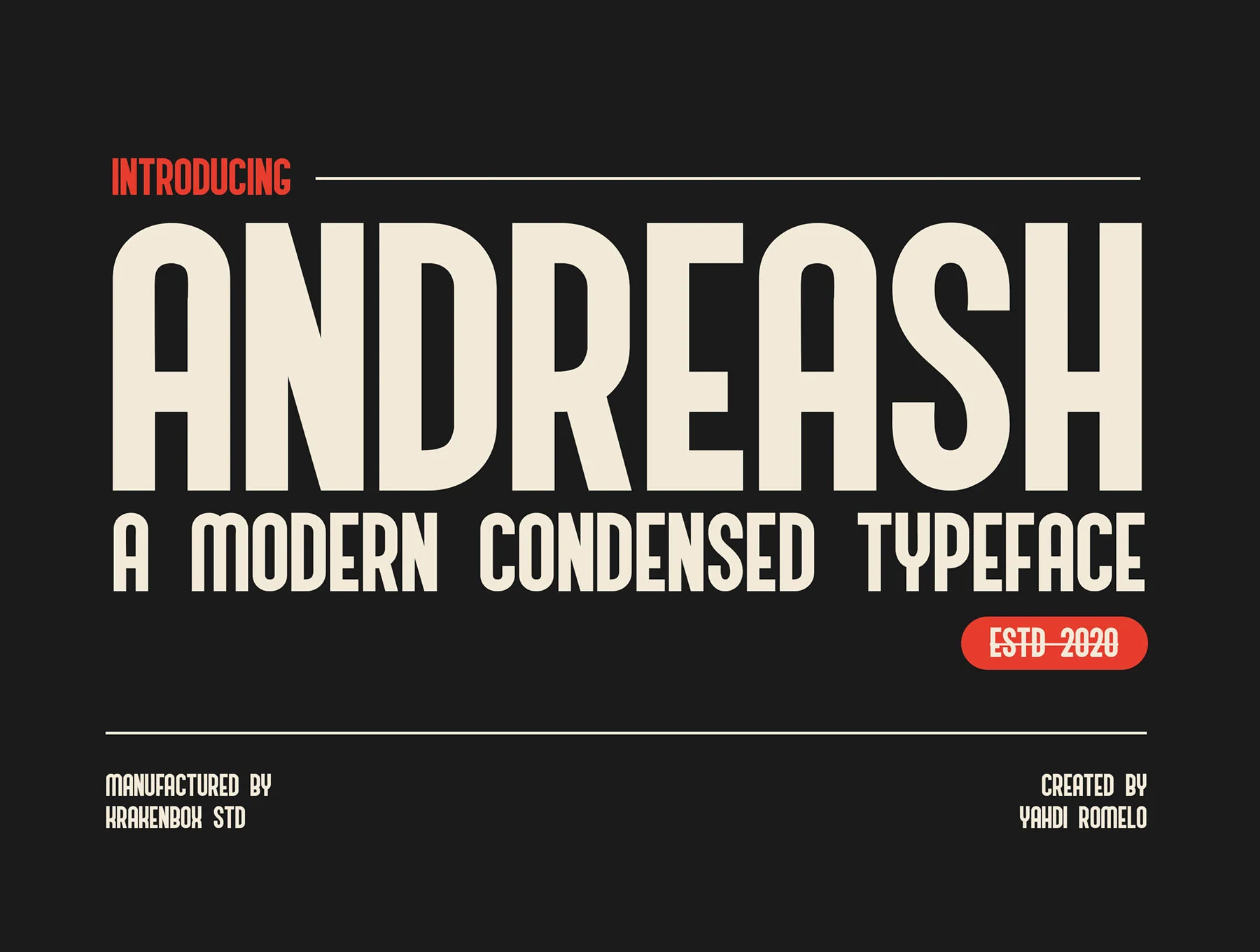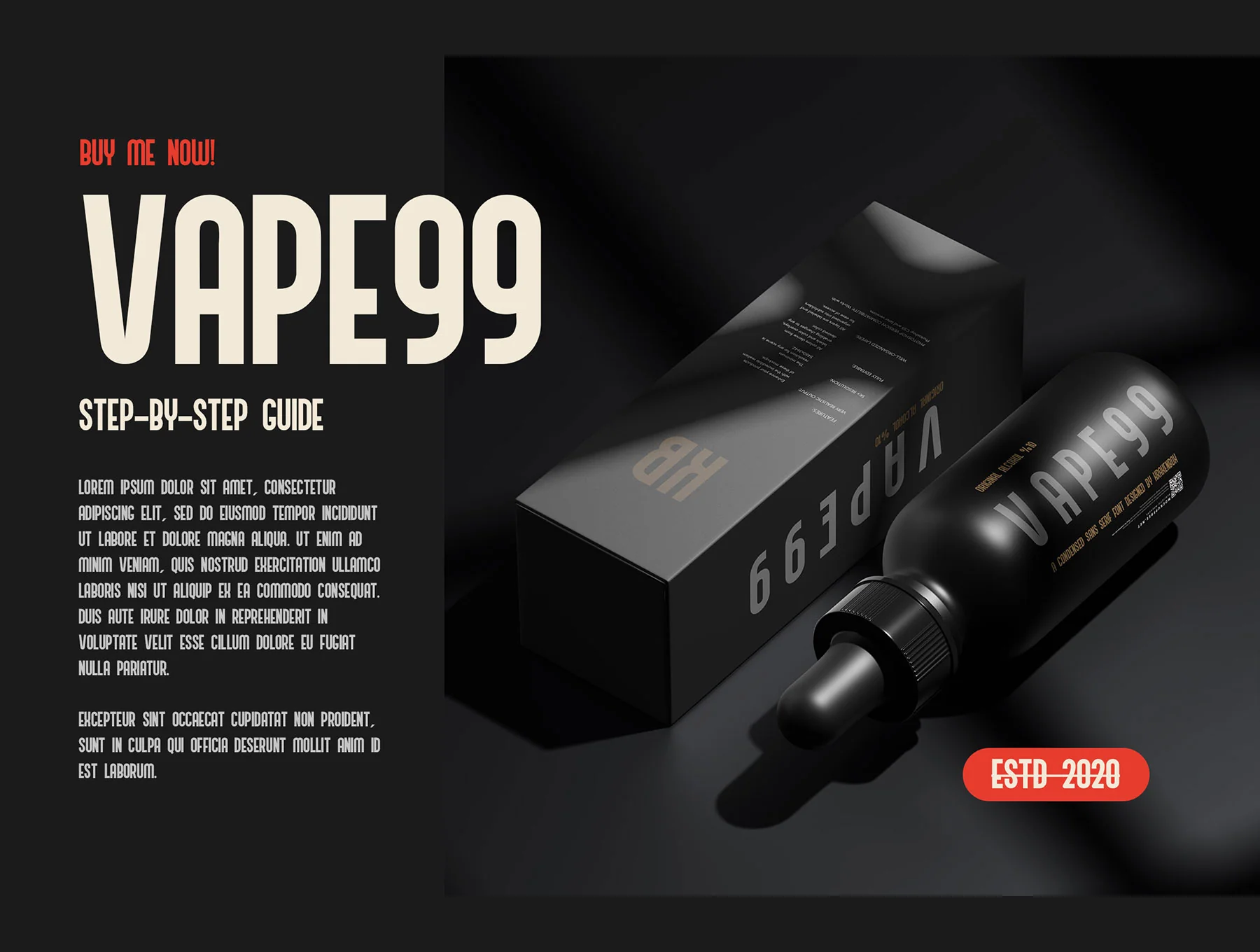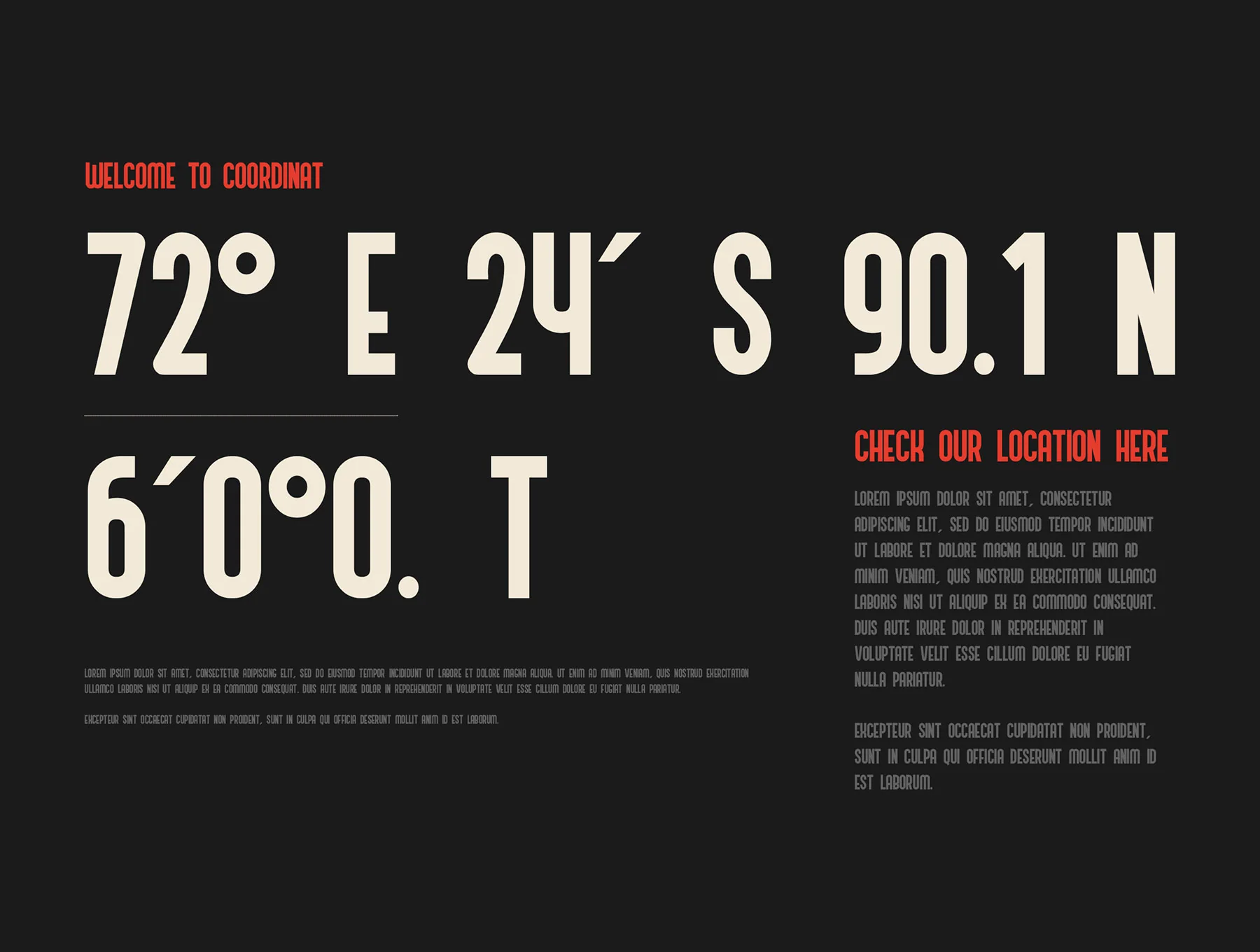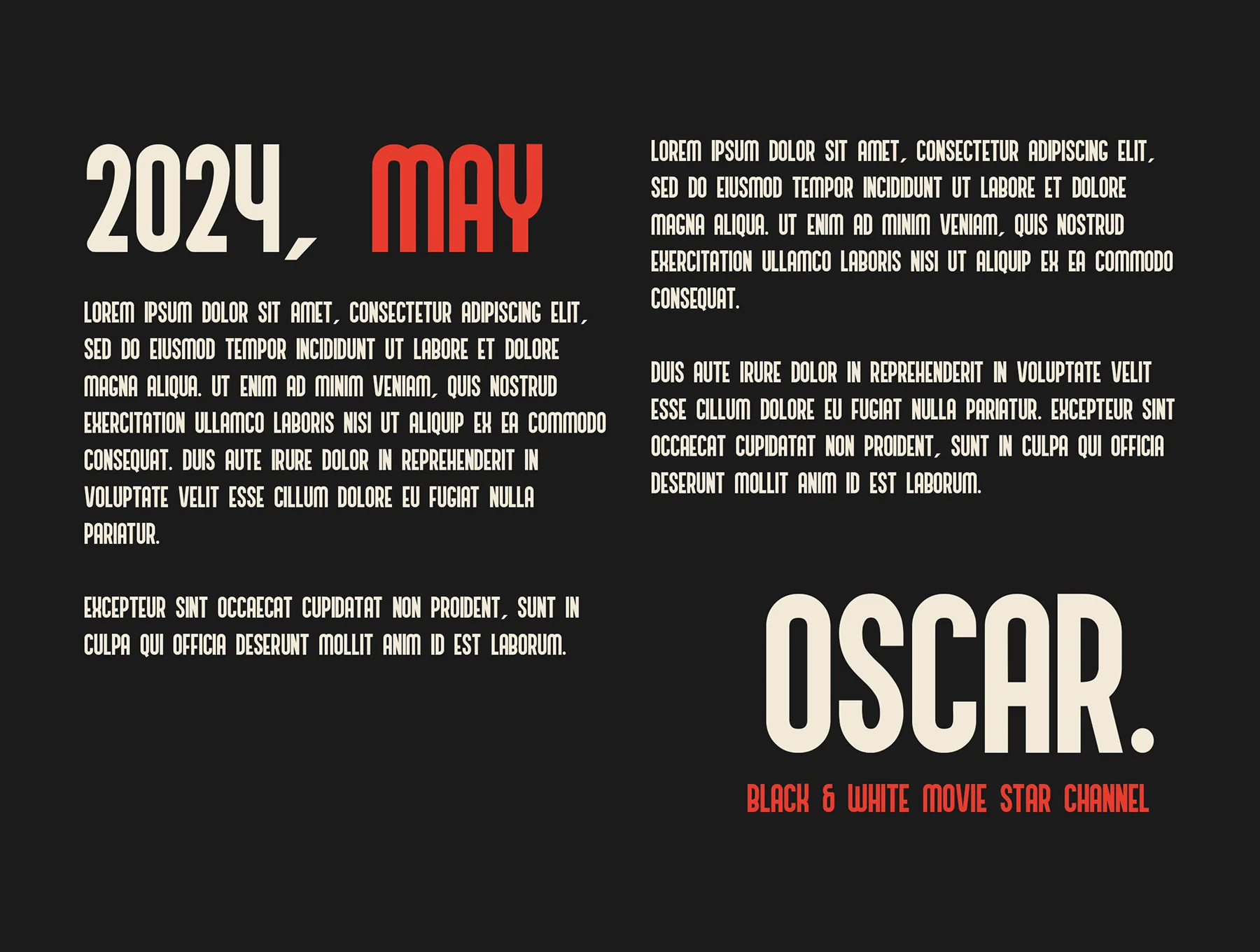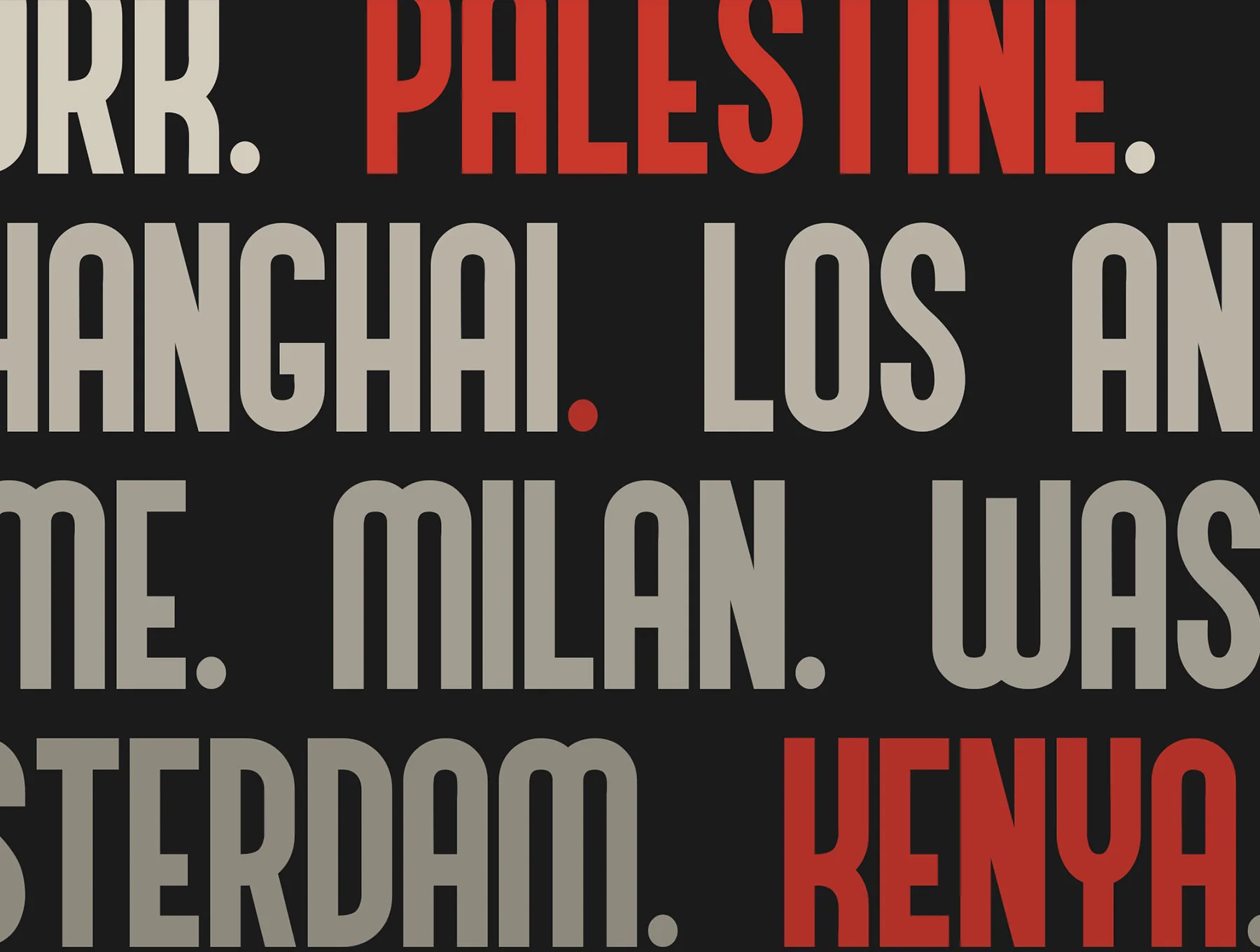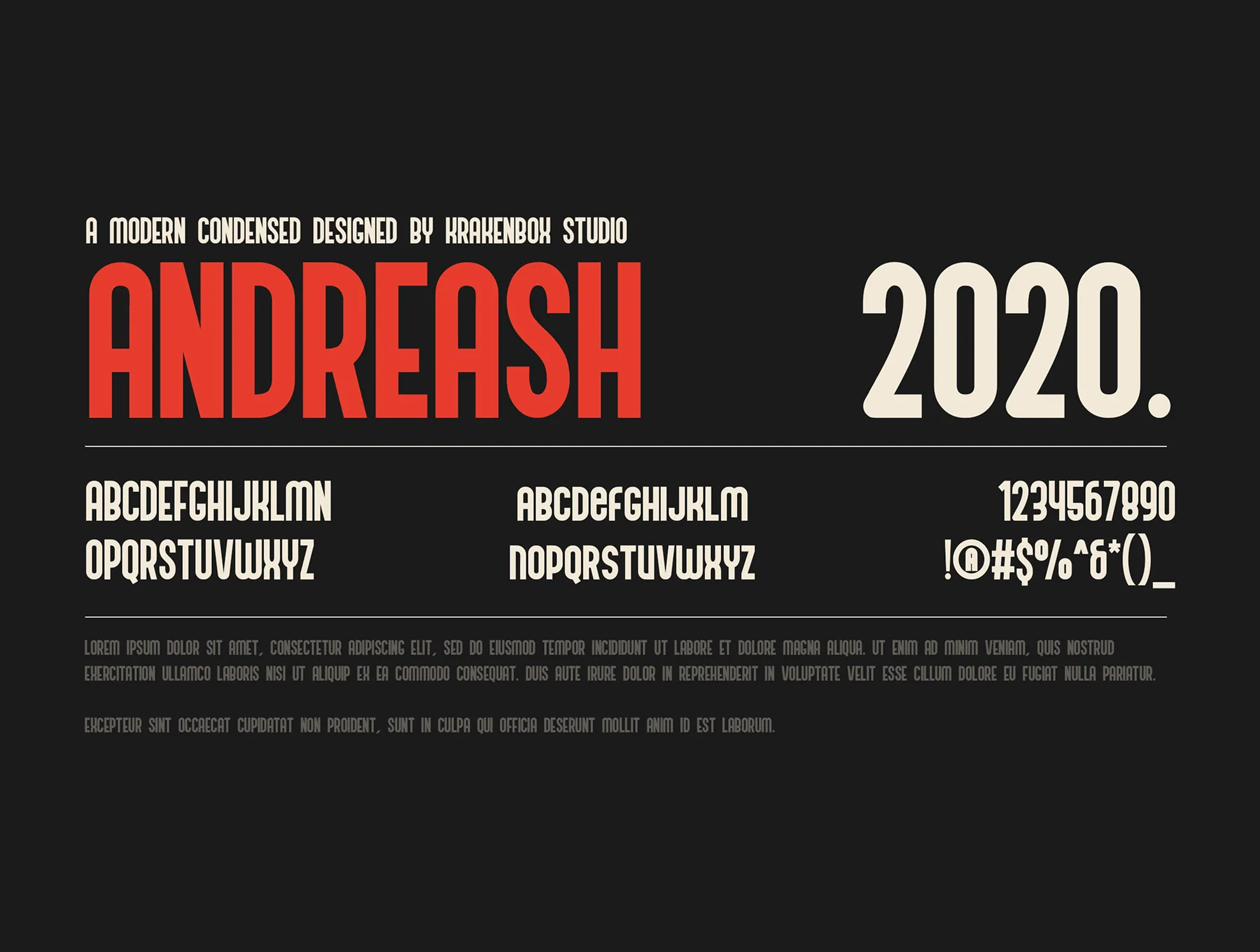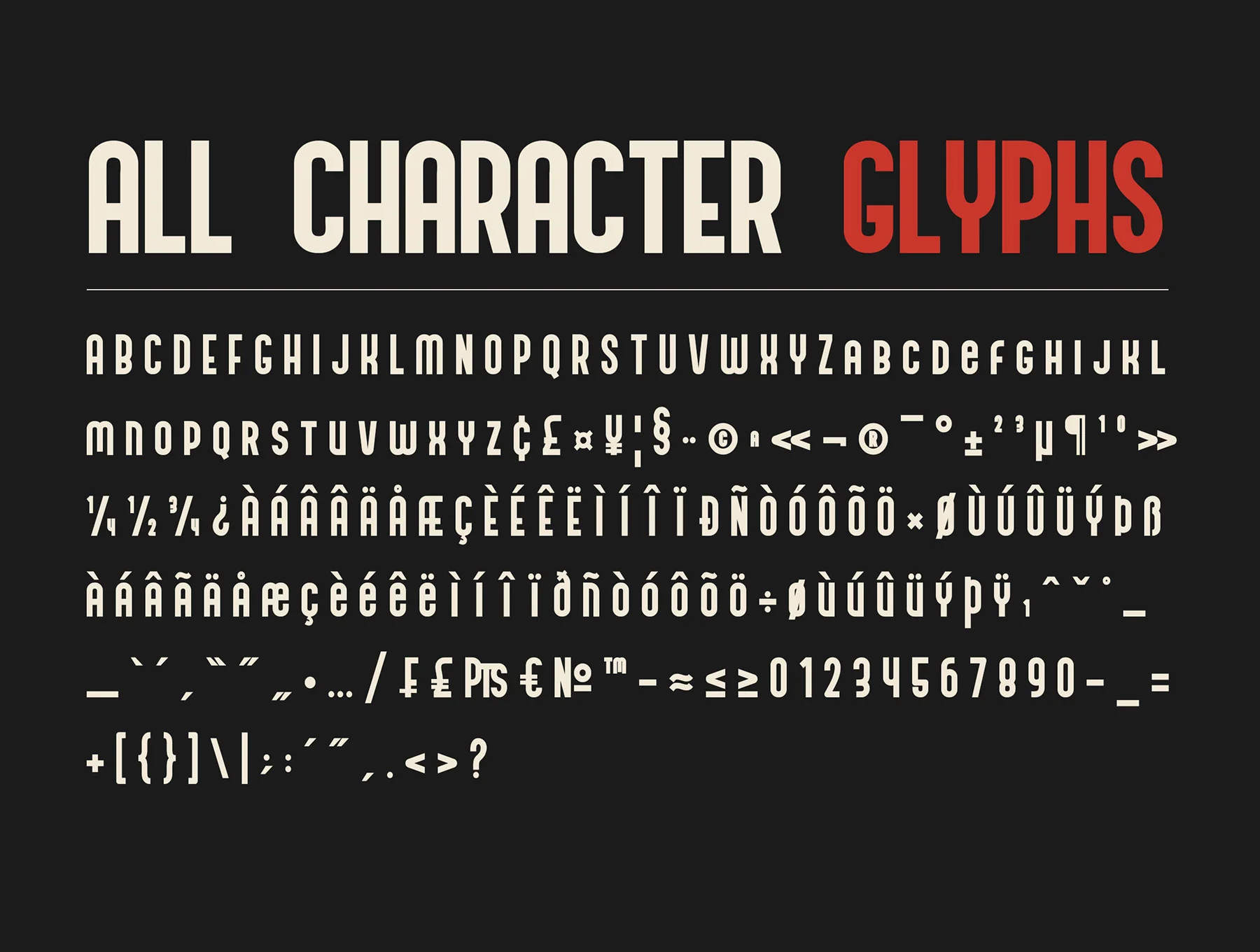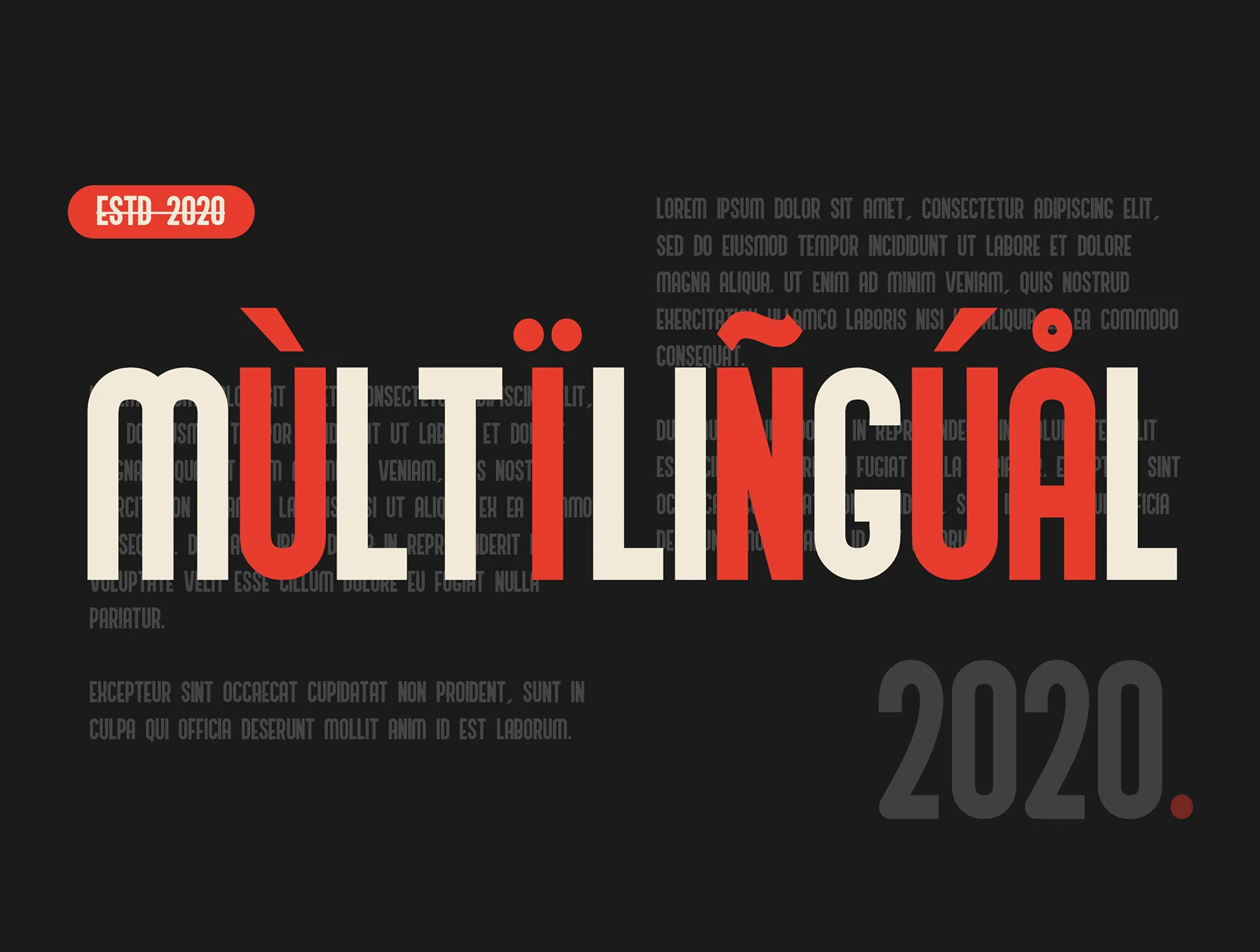
Andreash - A Modern Condensed Typeface
A Sleek Narrow Font
Uppercase and lowercase characters
Punctuation marks and numerals
Andreash is a refined condensed font designed to add clarity and polish to any project. Its crisp lines and balanced forms suit branding, websites, logos, headlines, and body copy. Modern, elegant, and highly readable, it helps present messages with confidence and style. Includes OTF and WOFF files.